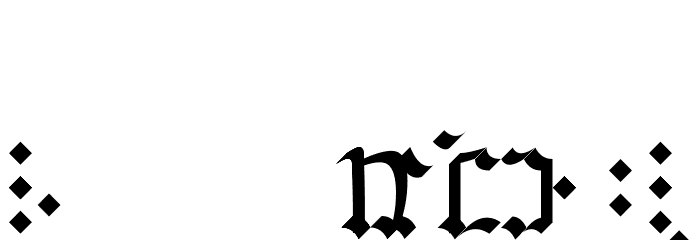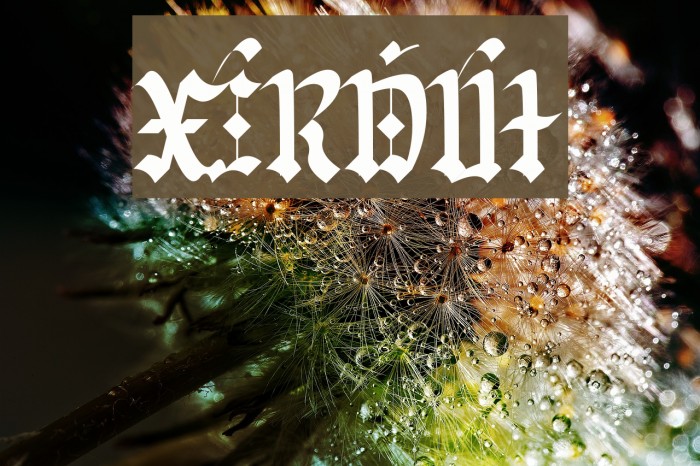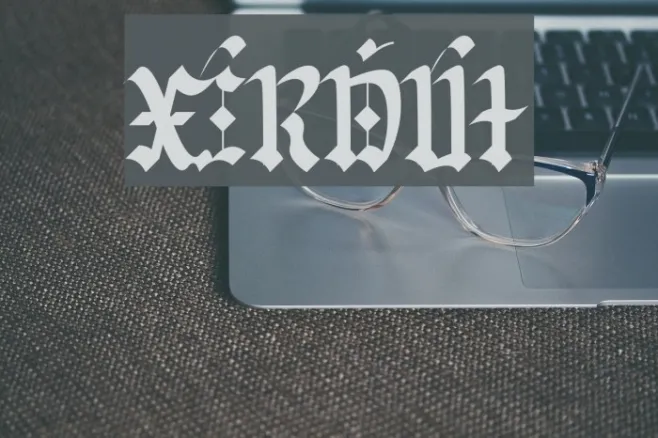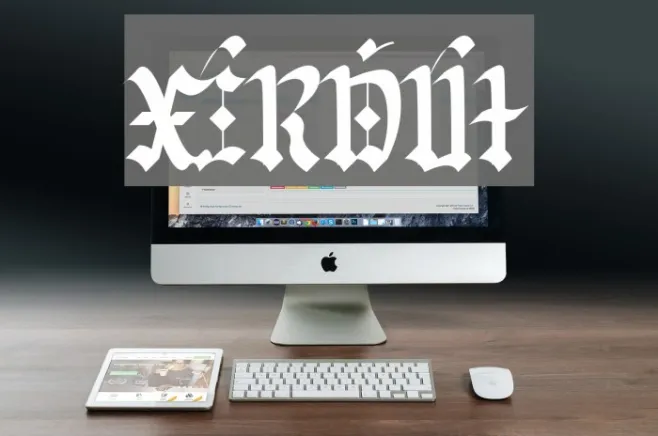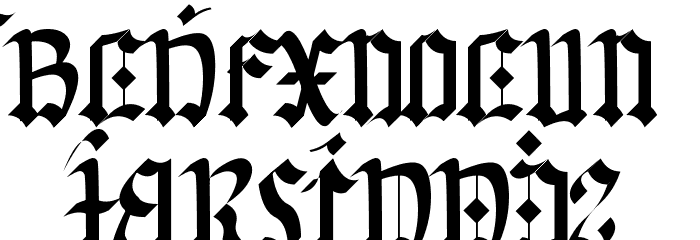
Gorwelion Font
Gorwelion Description
This font exhibits a traditional Blackletter style, characterized by its intricate and ornate letterforms. The strokes are bold and angular, with sharp, pointed serifs and a high contrast between thick and thin lines. The uppercase letters are particularly elaborate, featuring decorative flourishes that enhance the medieval aesthetic. The lowercase letters maintain the same level of detail, ensuring consistency throughout the typeface. The overall appearance is reminiscent of Gothic script, often associated with historical documents and classic literature. This font is designed to capture attention and convey a sense of tradition and formality.
| Overall Style | Vintage |
| Use Case | Headlines, Logos, Decorative text |
| Proposed Projects | Ideal for projects requiring a historical or medieval theme, such as book covers, event posters, or branding for vintage products. |